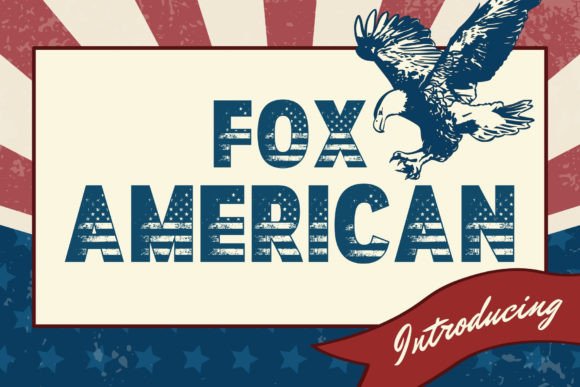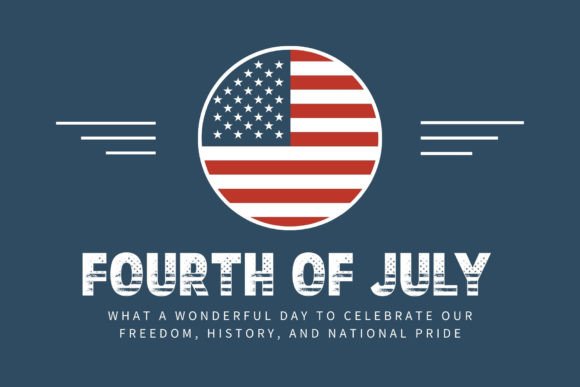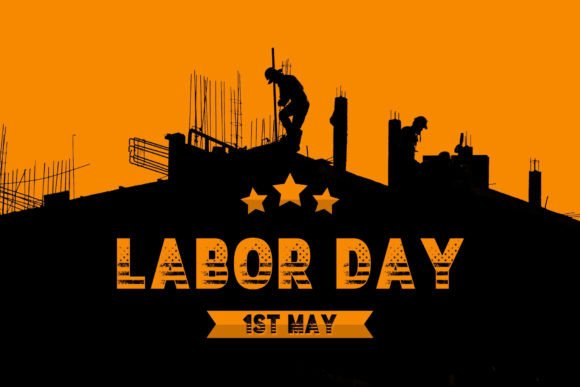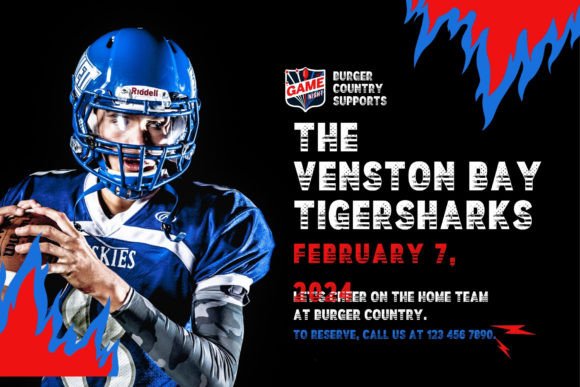
Fox American Font
About the Fox American Font
Step up your design game with Fox American Font, a font that exudes confidence and style. Fox American font features an American flag motif. This decorative font is perfect for projects that celebrate American culture, history, or events such as Independence Day, Veterans Day, or Memorial Day. It can be used to create impactful headlines, banners, or signage, infusing a sense of national pride and identity into any design.
Its bold, patriotic style makes it ideal for headlines, logos, and short, impactful text on posters or promotional materials related to American themes. Avoid using Fox American for body copy or lengthy text; its decorative nature makes it less legible for extended reading.
This font’s strong personality pairs well with clean sans-serif fonts like Open Sans for a balanced contrast, or a more traditional serif like Playfair Display for a classic, upscale feel. For a bolder statement, consider pairing it with a geometric sans-serif such as Montserrat.
Fox American projects a sense of confident, traditional American spirit, making it suitable for brands emphasizing heritage, Americana, or national pride. It’s less appropriate for brands with a modern, minimalist, or international focus.
Fox American Font Usage Examples
Fox American Font Example